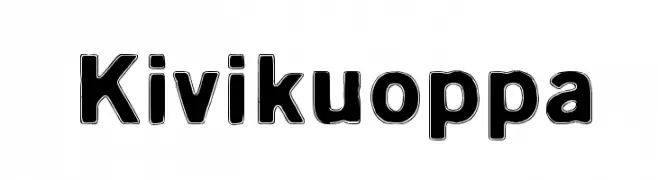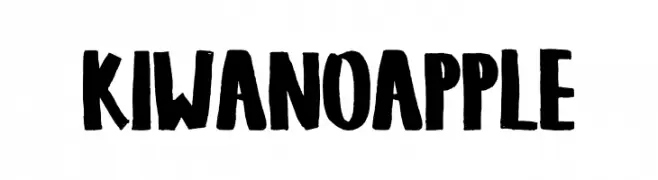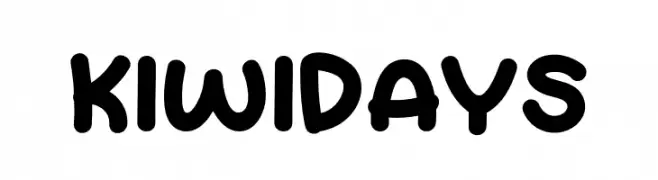
A graceful, cursive font with elegant loops and swirls.
A bold, robust font with rounded edges and a strong presence.
A bold, playful, hand-drawn font with a casual and artistic feel.
A bold, playful, hand-drawn font with a casual and artistic style.
A modern, geometric font with bold lines and innovative use of negative space.
A bold, playful font with rounded edges and a hand-drawn style.
A playful, bold font with rounded strokes and a friendly appearance.
A bold, handwritten script font with a playful and energetic style.
A casual, handwritten-style font with a school-inspired aesthetic.